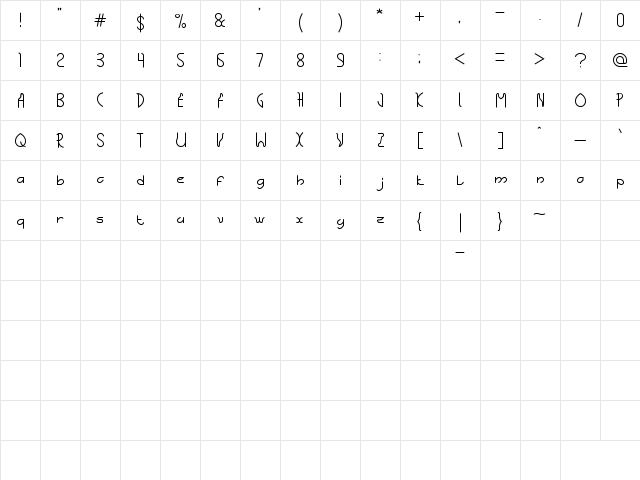
THE SCIENCE ARCHAEOLOGIST Regular
Design Context for THE SCIENCE ARCHAEOLOGIST Typeface
THE SCIENCE ARCHAEOLOGIST is a composed and adaptable typeface that performs quietly and consistently across a wide range of design contexts.